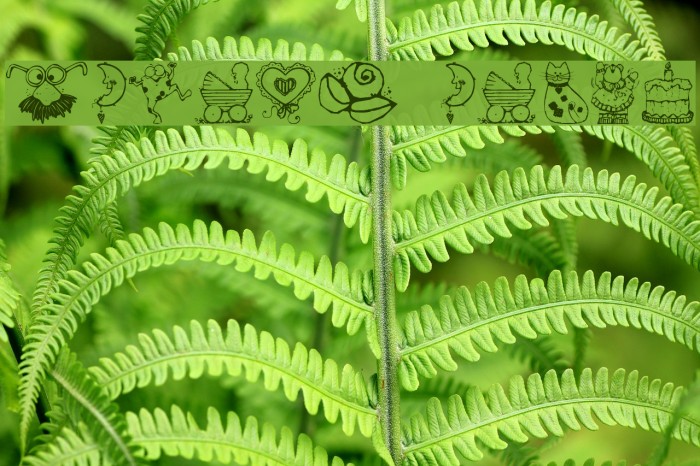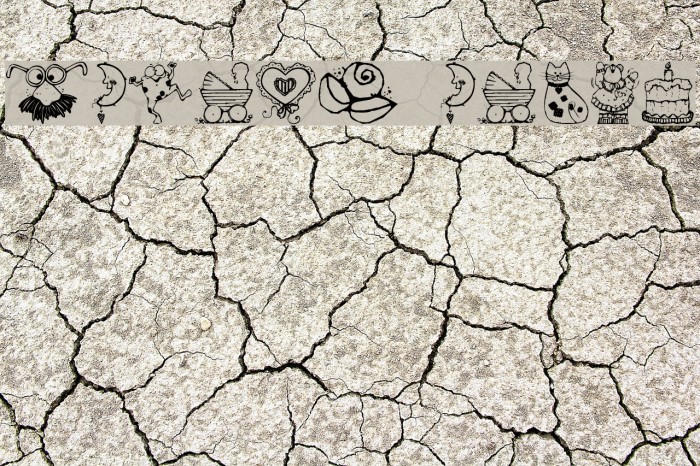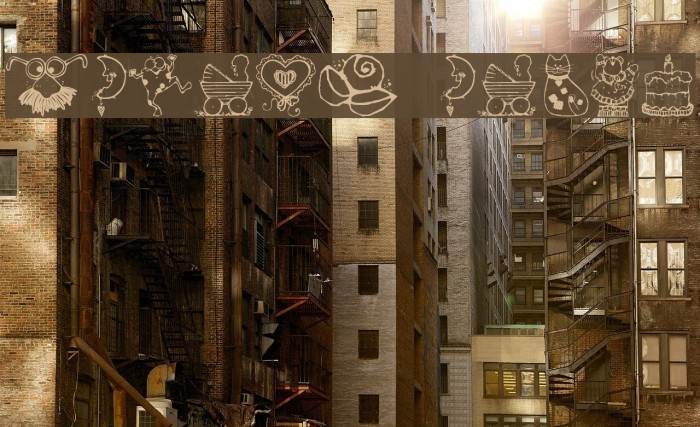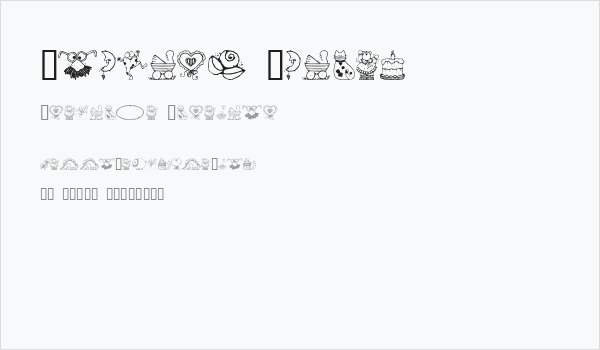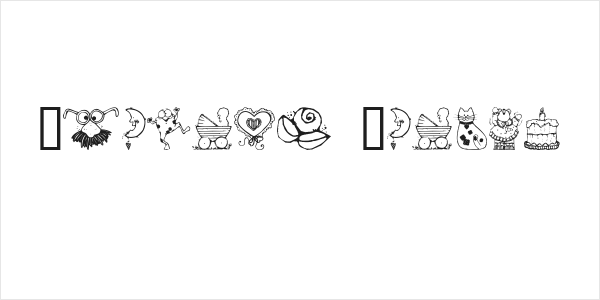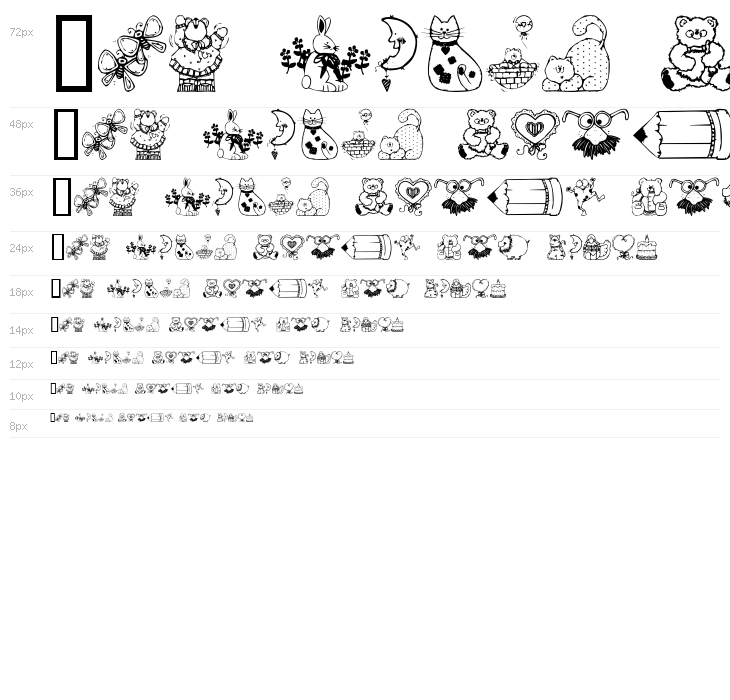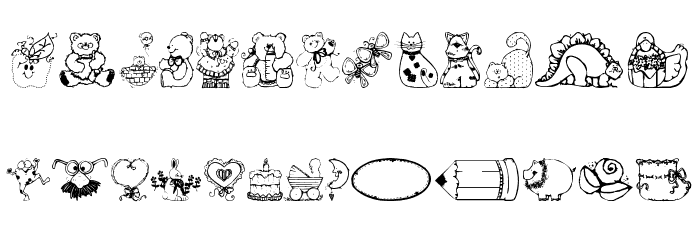
Country Cuties Font
Country Cuties Description
A playful decorative font composed of hand-drawn cartoon illustrations, each character represented by a unique, whimsical animal or object with country-inspired and cute motifs.
| Overall Style | Decorative, Whimsical, Playful |
| Use Case | Logos, Headlines, Invitations, Crafts |
| Proposed Projects | ChildrenΓ’β¬β’s books, greeting cards, scrapbooking, educational materials, playful branding. |